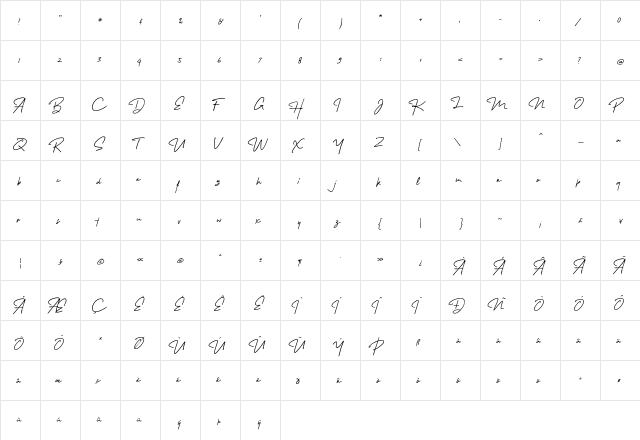
Melanic Black Script Regular
Design Context for Melanic Black Script Typeface
Melanic Black Script flows with the natural rhythm of handwritten lettering, making it ideal for designs that call for warmth and personal expression.
Font Pairing: Combine Melanic Black Script with a simple geometric sans for maximum contrast — the tension between flowing curves and clean structure is a classic typographic pairing.
Pro Tip: Use Melanic Black Script for short runs of text — names, titles, or taglines. Extended body copy in script faces tires the eye quickly.